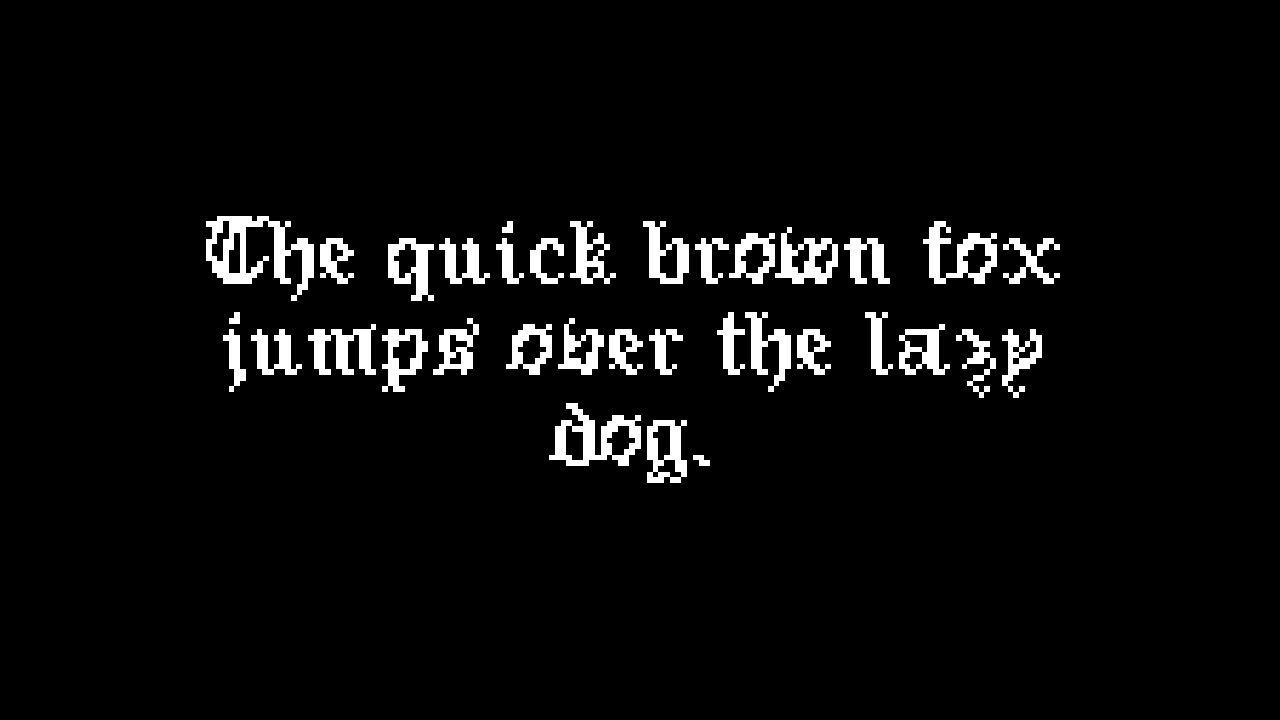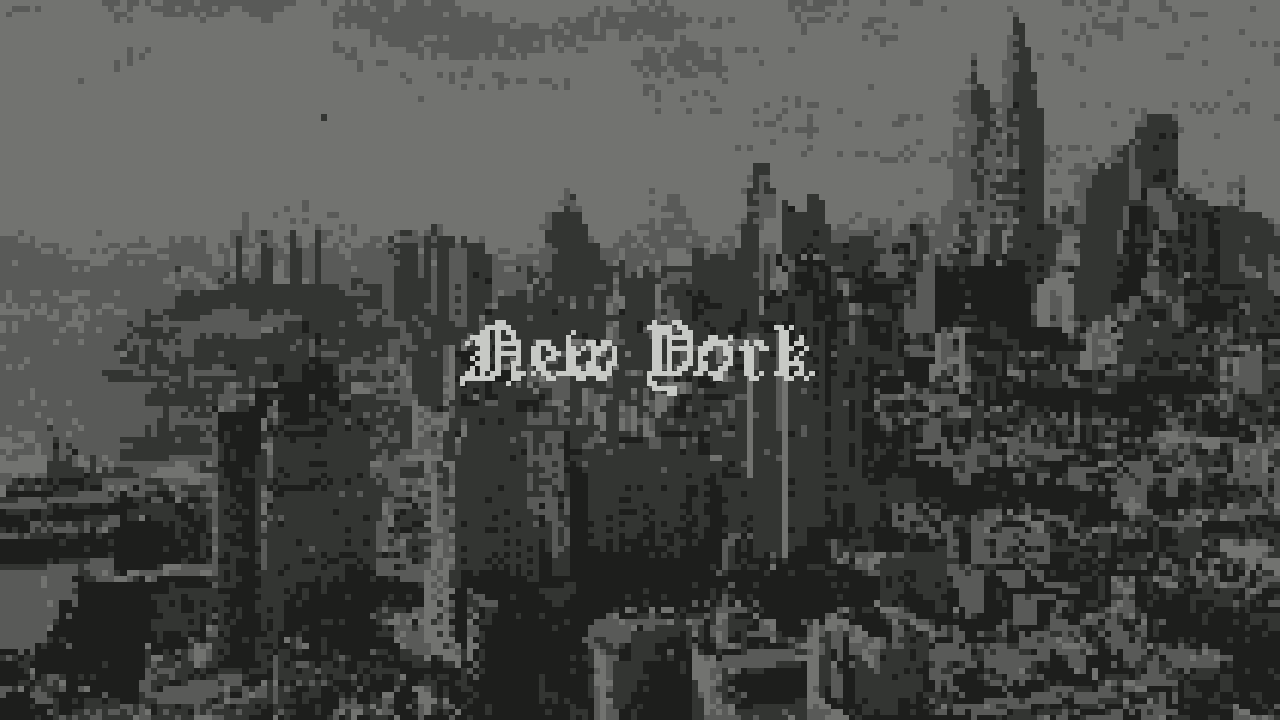
Pixeled English Font
About Pixeled English Font
“Pixeled English Font” (previously: “Pixel Gothic Font”) is a pixel/bitmap font inspired by William Caslon’s typefaces and the Old English Font.